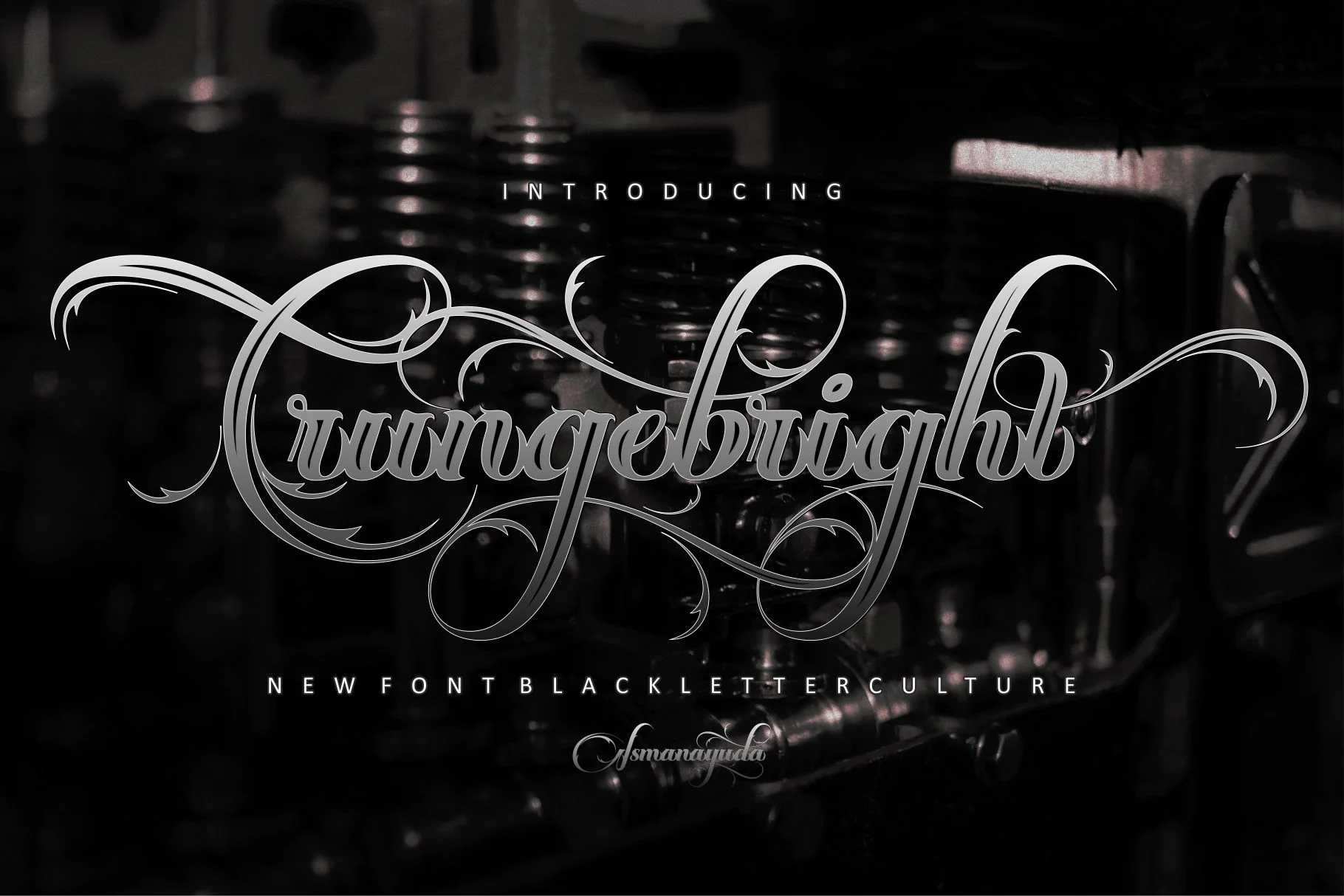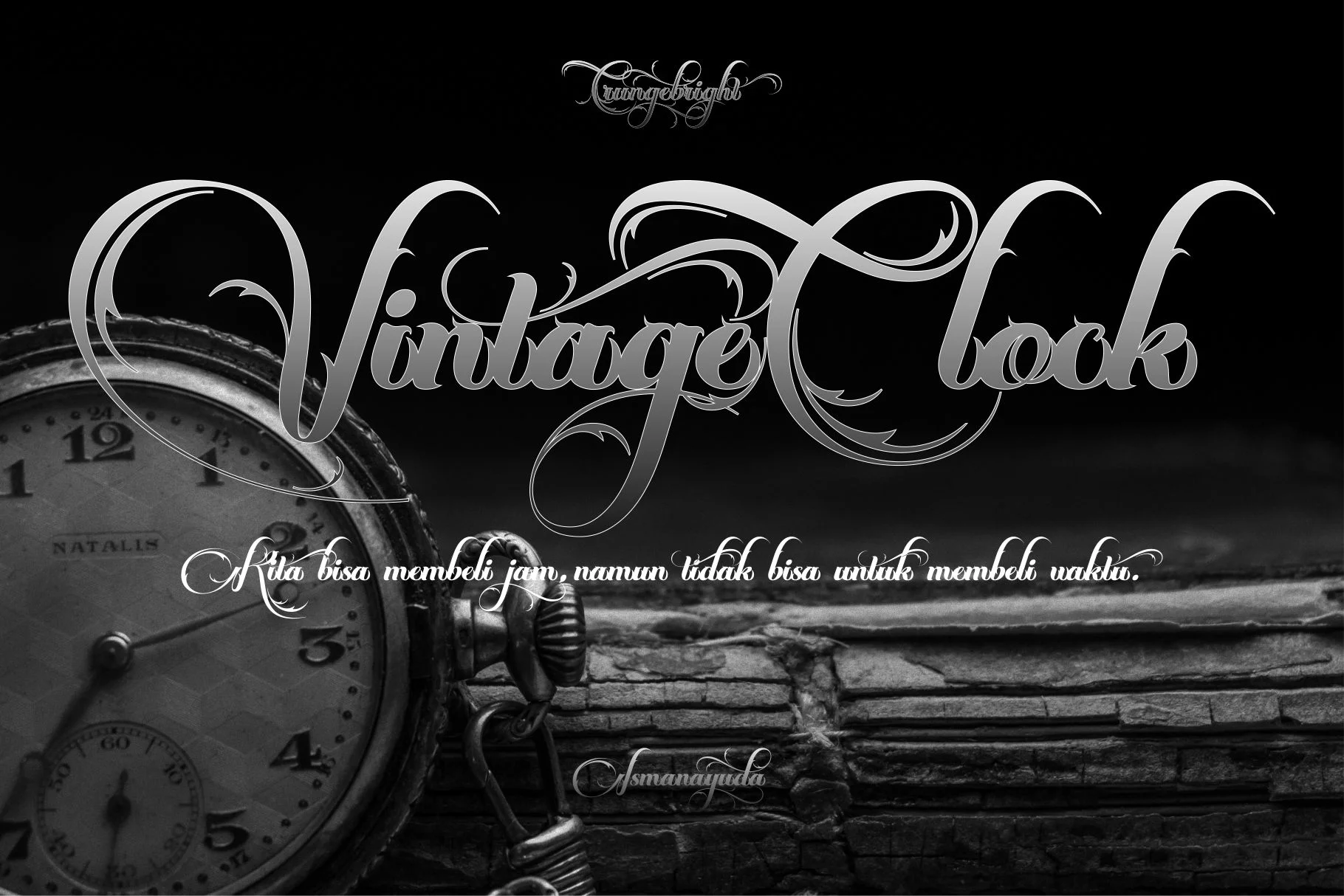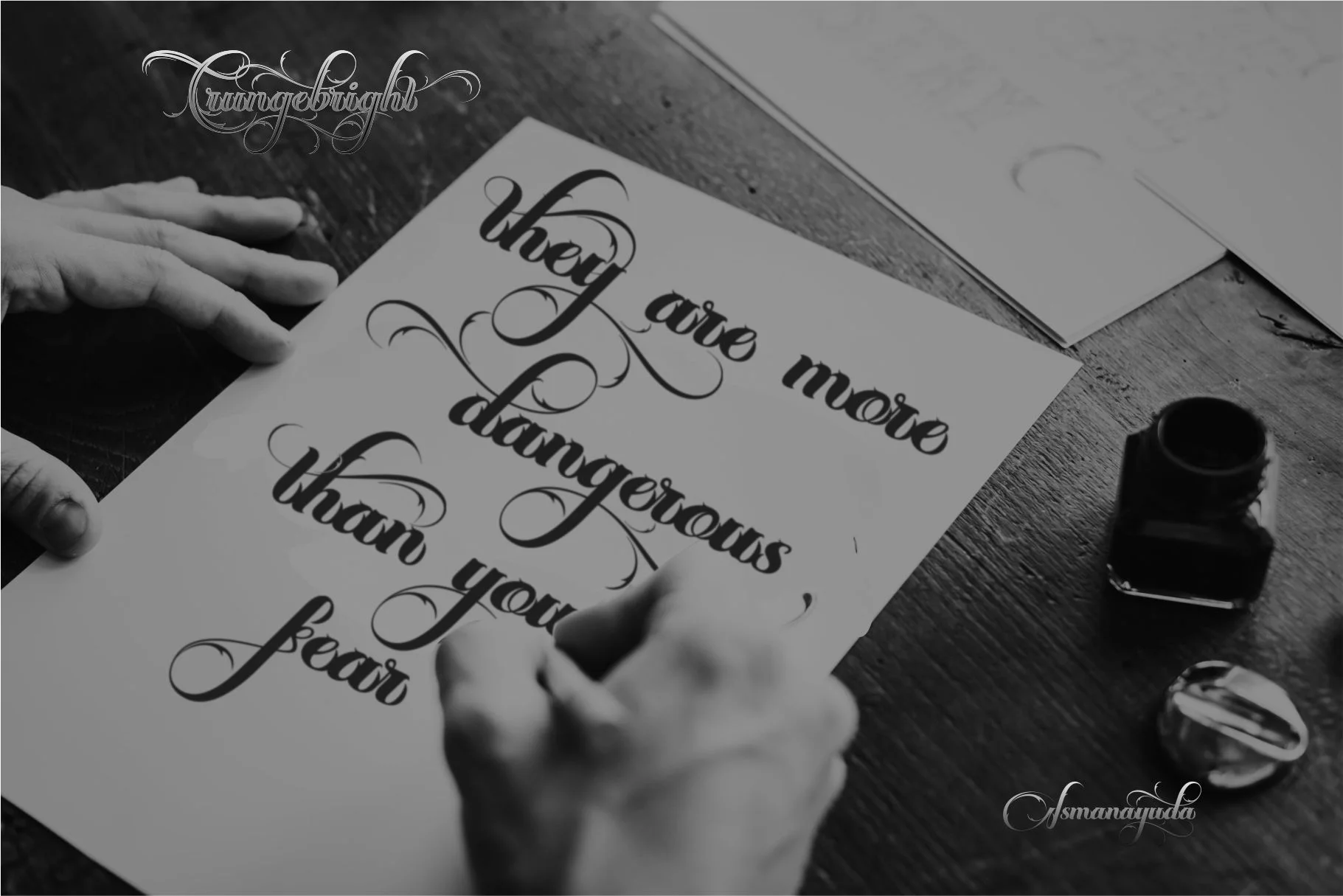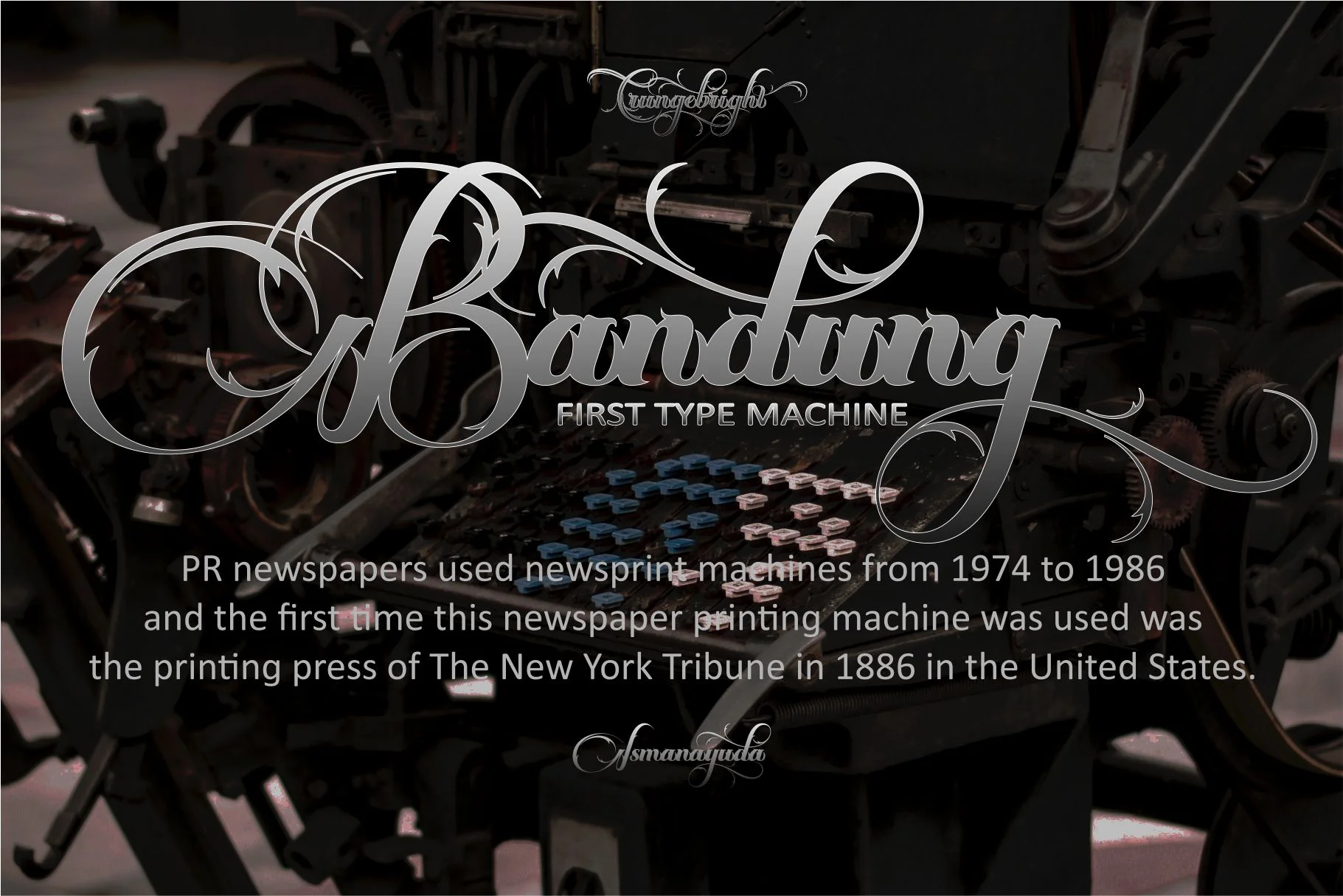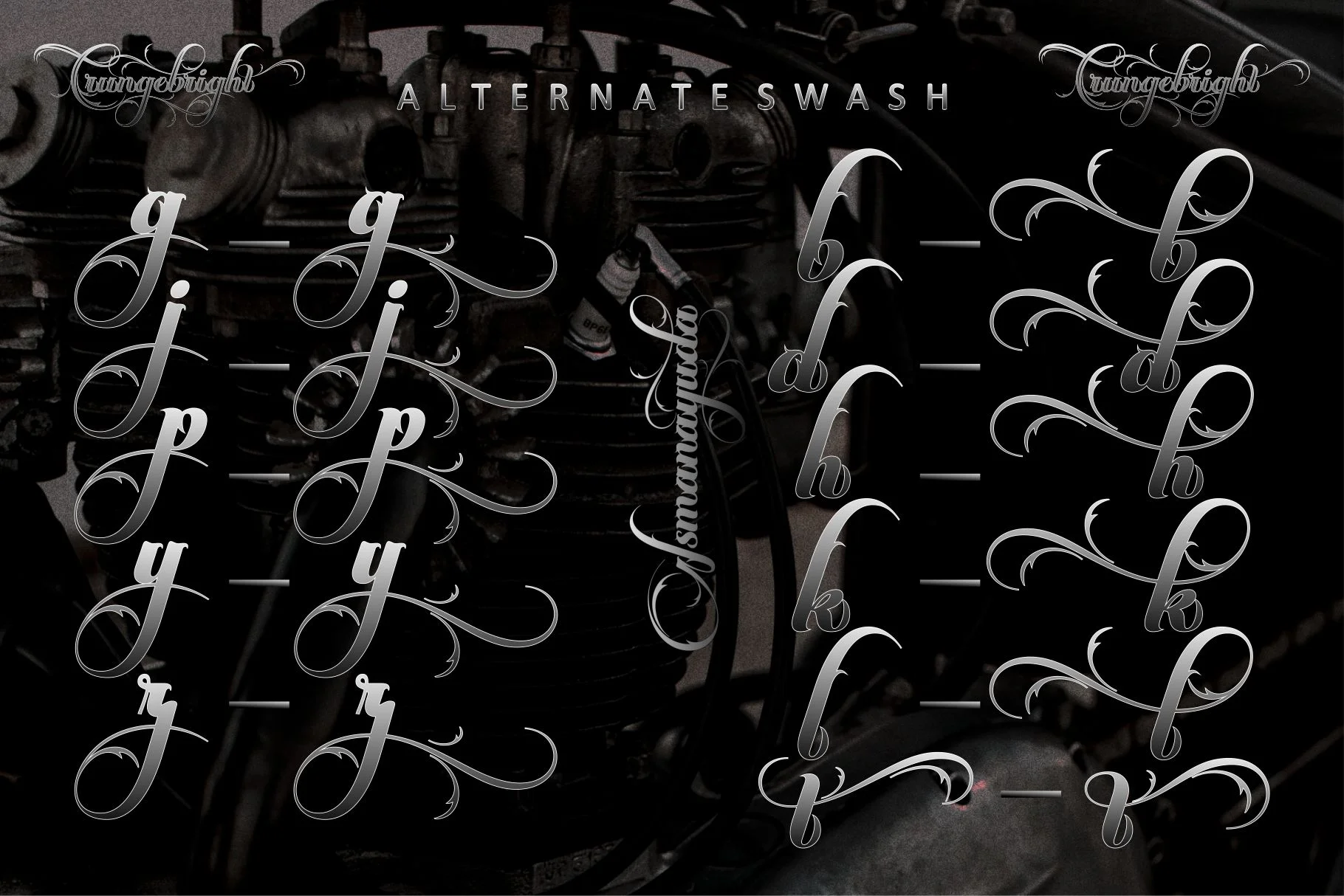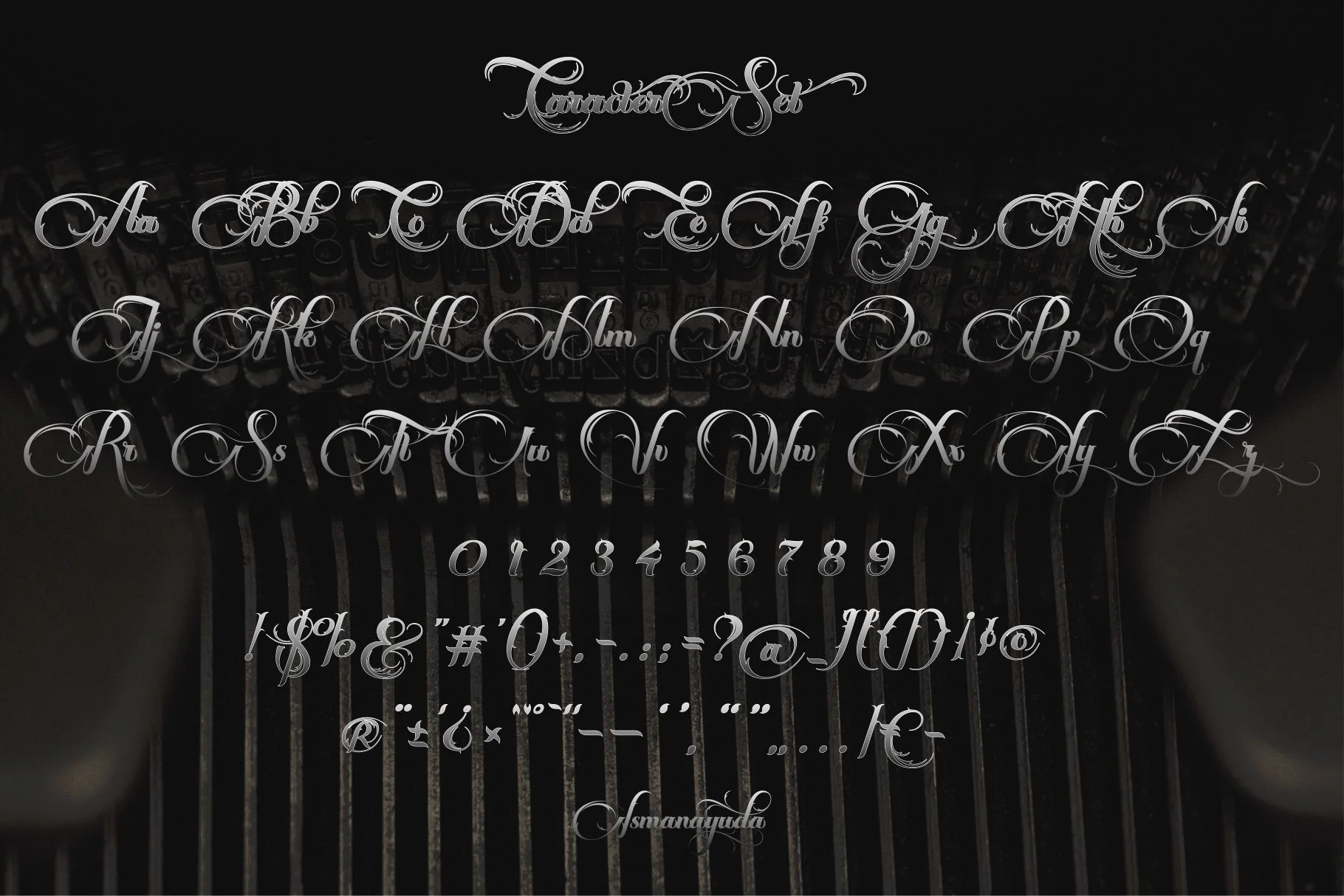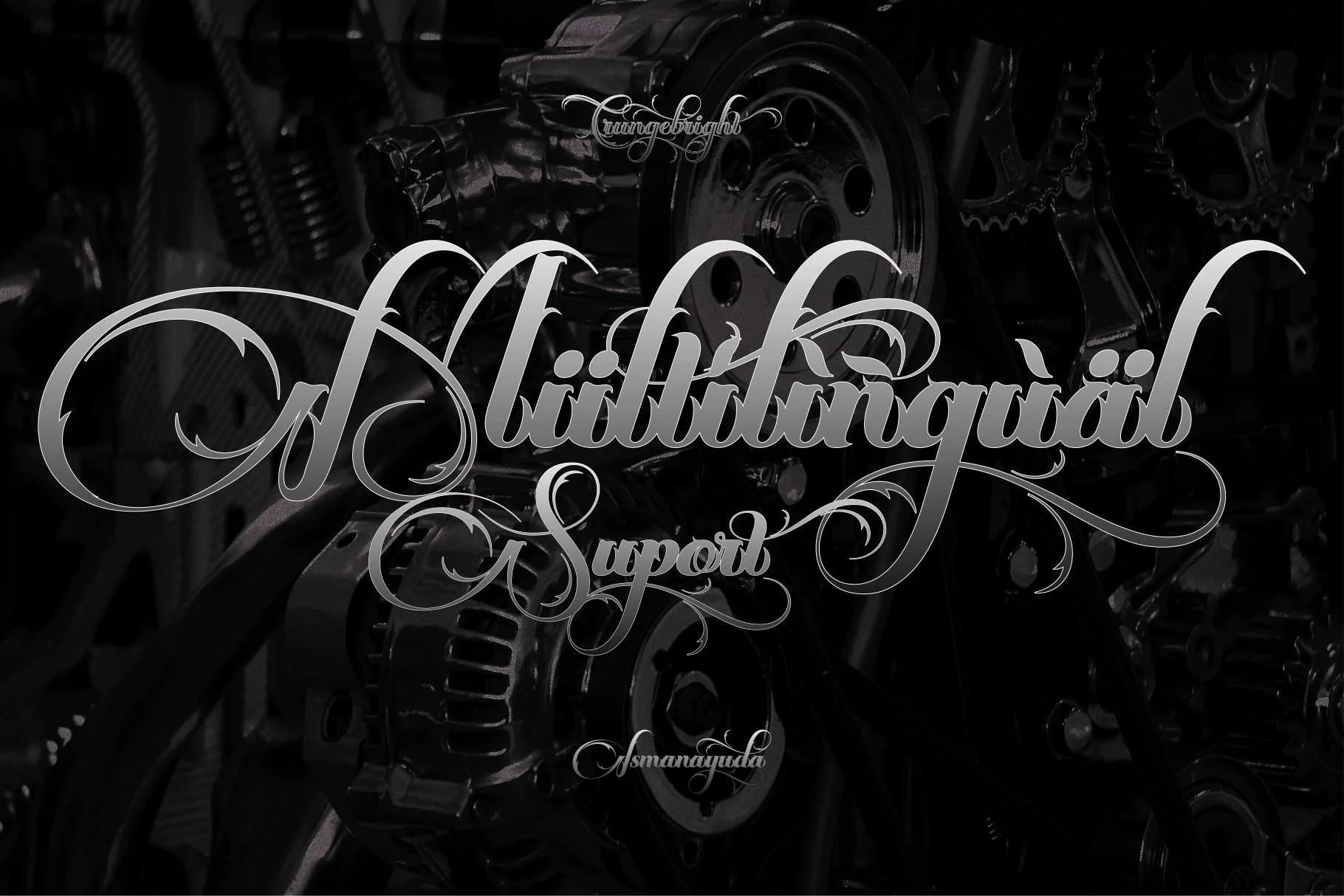
Crunge Bright
Crungebright is a stylized script font that draws significant inspiration from Blackletter culture. Its visual identity is defined by intricate, flowing calligraphic flourishes and sharp, aggressive terminals that give it a "retro-urban" and exquisite aesthetic. The font features heavy vertical strokes characteristic of traditional Gothic scripts, blended with the fluid, continuous motion of modern hand-lettering.
This font is specifically crafted for high-impact visual needs where a sense of power, craftsmanship, or alternative culture is required. Its best use cases include:
- Tattoo Design: For its elaborate and artistic letterforms.
- Branding & Logos: Particularly for streetwear apparel, band names (especially in metal or hardcore genres), and industrial-themed businesses.
- Product Design: Adding a unique, edgy character to packaging and promotional posters.